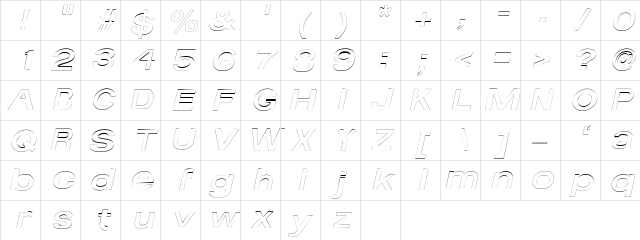
AverageOutline is built around its visual character rather than neutral utility - its distinctive forms are designed to make an impression at display sizes. The slanted form adds forward momentum and visual energy.
Font Pairing: Pair with a clean neutral sans-serif for body copy to let AverageOutline's character lead without overwhelming the composition.
Pro Tip: Use AverageOutline exclusively at display sizes - it was designed to be seen, not read at length. Let a neutral companion handle body copy.